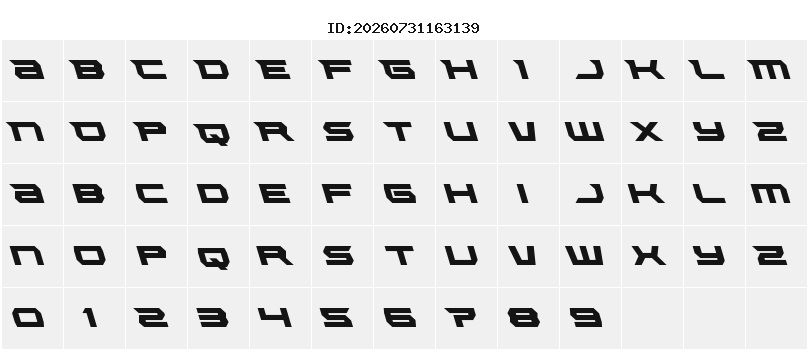
• Font Name: Lethal Force Leftalic
• Designer: Daniel Zadorzny
About Lethal Force Leftalic.ttf
Lethal Force Leftalic.ttf is a modern, elegant sans-serif font designed for ultimate readability and visual harmony. Perfect for branding, headlines, web design, and print materials.